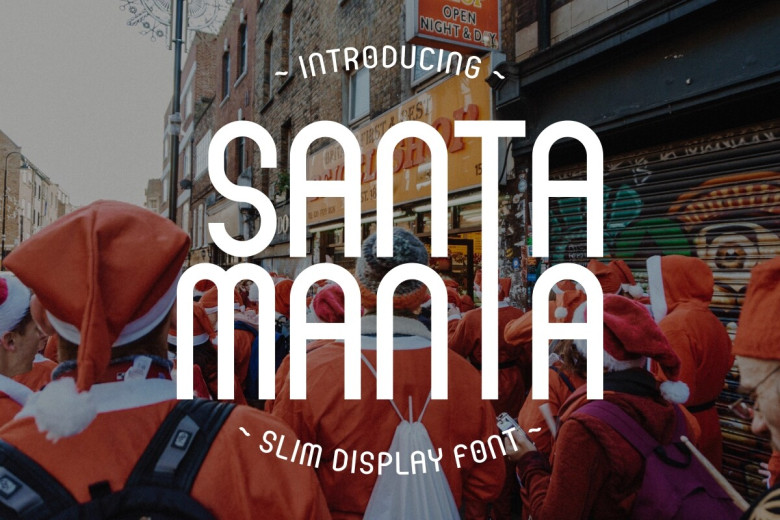
Santa Manta Font
Santa Manta is the ultimate thin display typeface that captures all the magic of Christmas with all its celebrations. This eye-catching font can be customized to bring Santa’s joyful charm into any Christmas design project, perfect for holiday greetings, invitations, wrapping gifts, Logo Design projects, Decoration, Digital Art projects and crafts projects of any kind!
Santa Manta Display Font